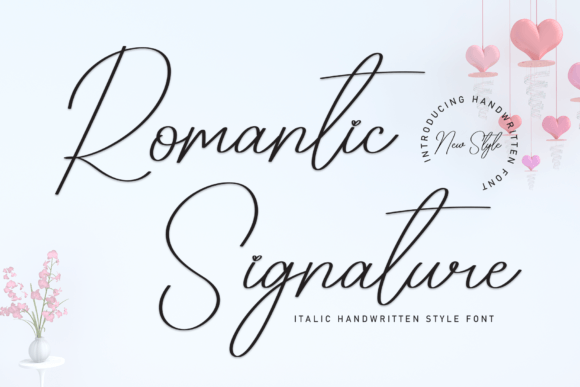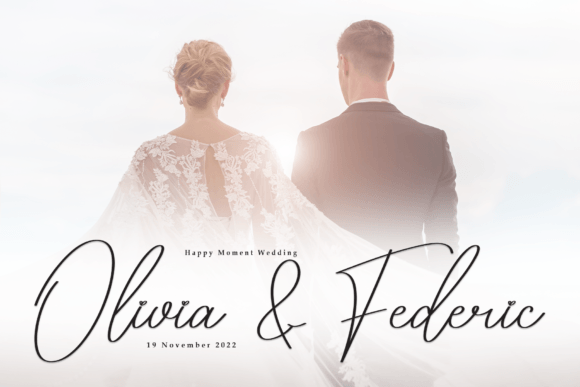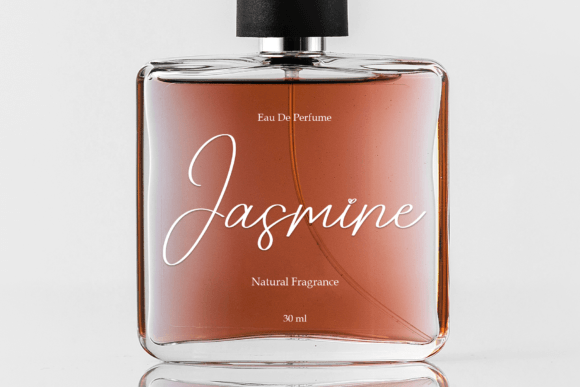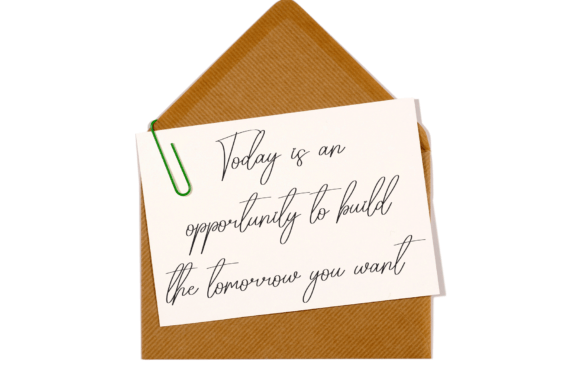
Romantic Signature Font
About the Romantic Signature Font
The wait is over! The incredible Romantic Signature Font is now available for your design toolkit. Romantic Signature is a sweet and cursive handwritten font. This gentle font will look gorgeous on a variety of design ideas. It will add a joyful and romantic touch to each of your projects! Perfectly fit for branding, logo, wedding things, greeting cards, fashion, lookbook, marketing promotion, and anytime you want to look fancy and elegant but still casual.
Its flowing, organic forms make it ideal for headlines, short text blocks on invitations or packaging, and branding elements requiring a touch of delicate elegance. However, its cursive nature and varying stroke weights make it unsuitable for body text or UI elements where readability is paramount. Avoid using it for long paragraphs or small sizes.
Romantic Signature’s personality is undeniably charming and feminine, yet approachable. It’s best suited for brands focusing on beauty, fashion, weddings, or other industries emphasizing romance and handcrafted aesthetics.
Pairing it with a clean sans-serif like Montserrat for body text provides a strong contrast and enhances readability. For a more sophisticated look, consider a classic serif such as Garamond. Alternatively, a simple geometric sans-serif offers a modern counterpoint.